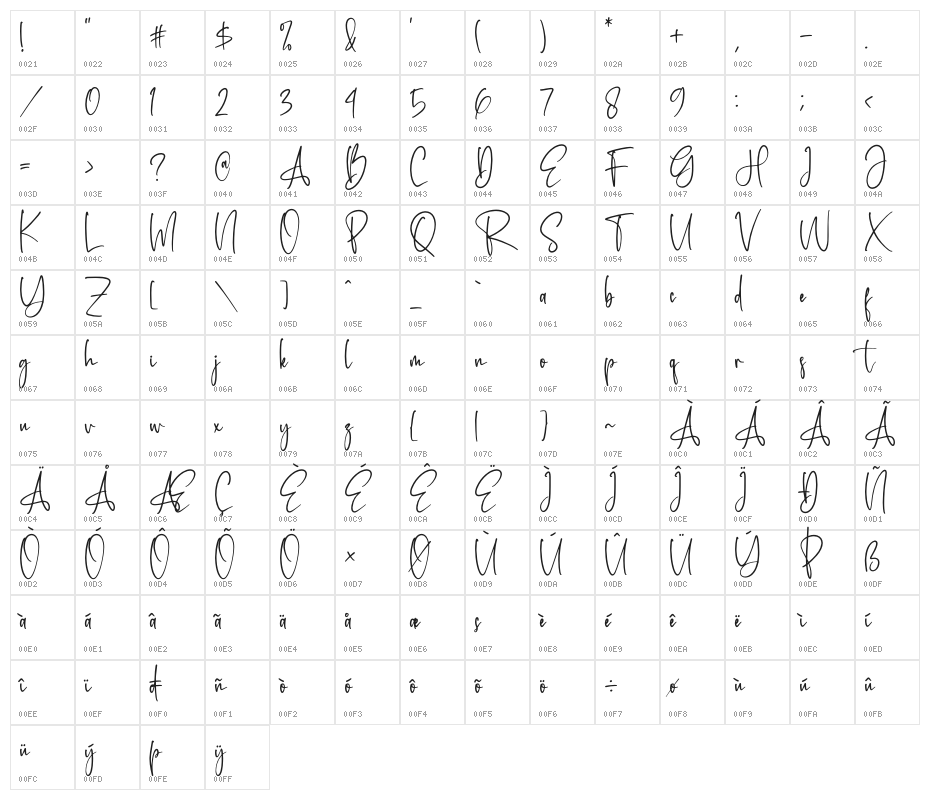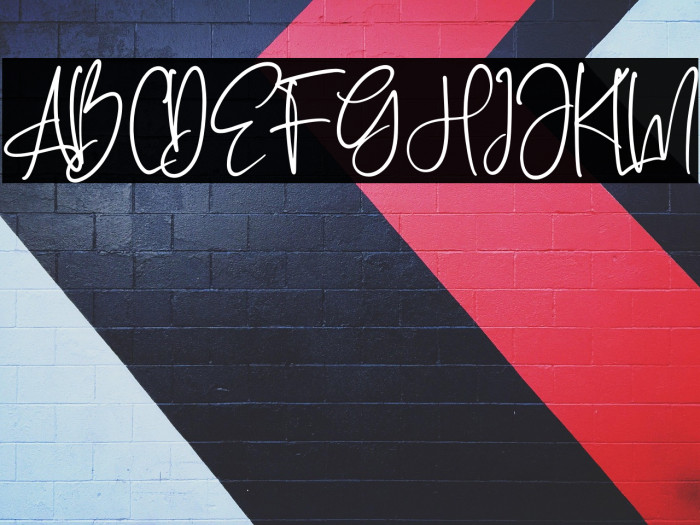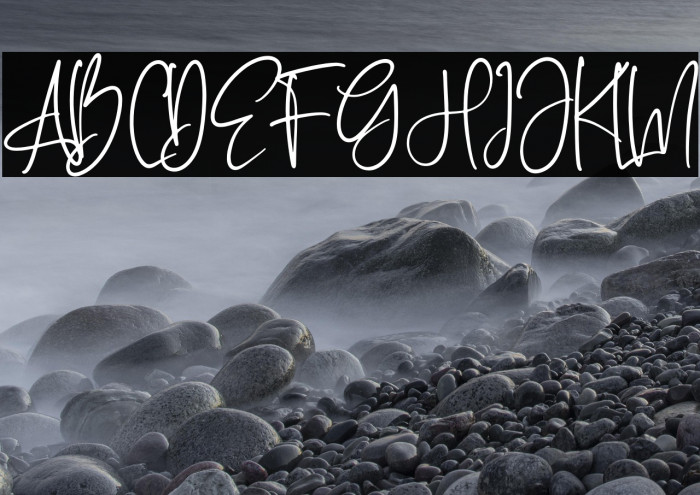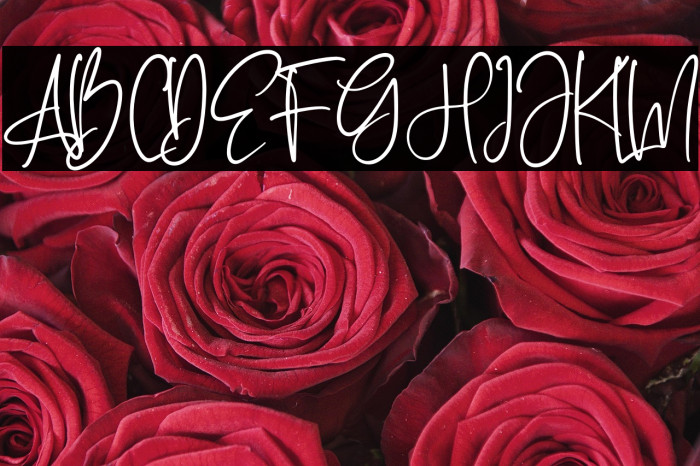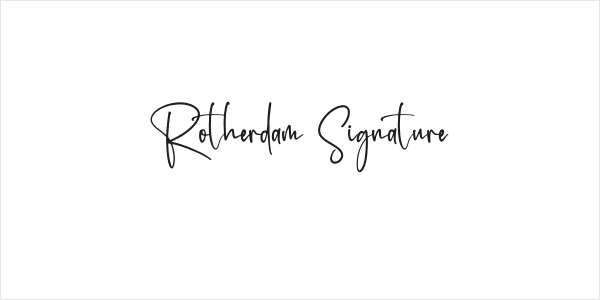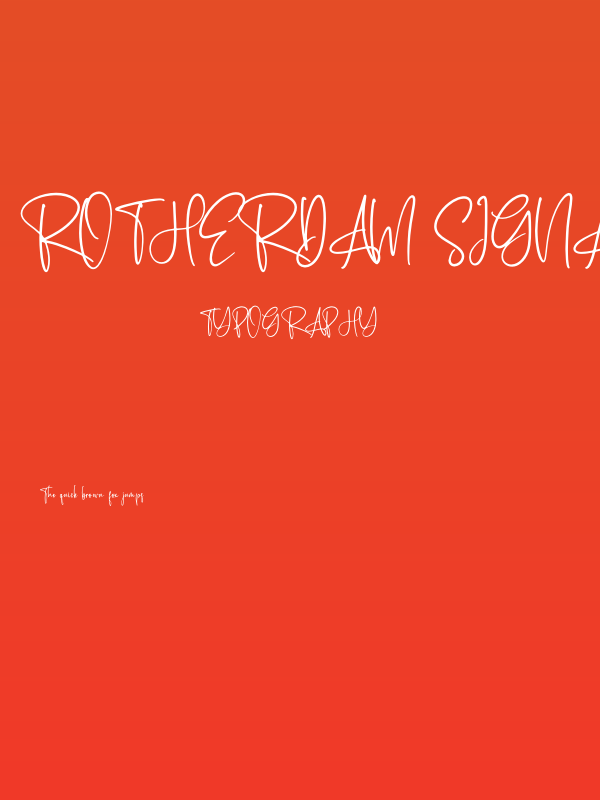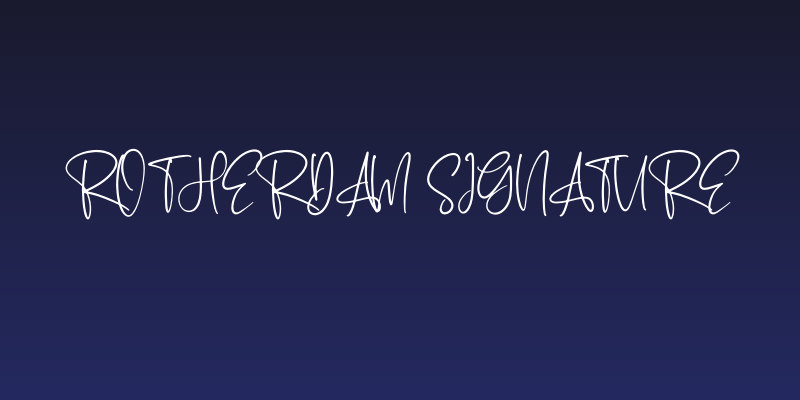
Rotherdam Signature Font
Rotherdam Signature Description
This font exudes a modern and elegant handwritten style, characterized by its fluid and natural strokes. The uppercase letters are tall and slender, with a slight slant that adds a dynamic feel. The lowercase letters maintain a consistent flow, enhancing readability while preserving the handwritten charm. Numbers and special characters are crafted with the same attention to detail, ensuring a cohesive look across all elements. The overall design is sophisticated yet approachable, making it suitable for a variety of creative applications.
| Use Case | Logos, Invitations, Social Media |
| Proposed Projects | Ideal for wedding invitations, personal branding, social media graphics, and elegant packaging designs. |